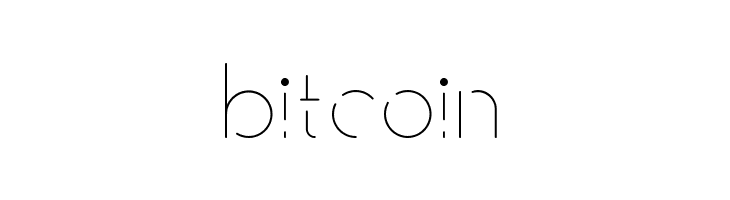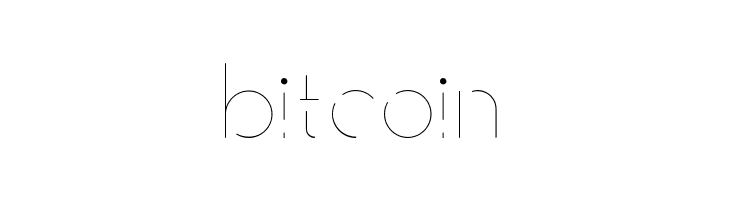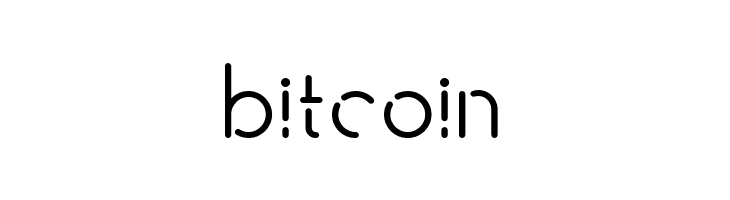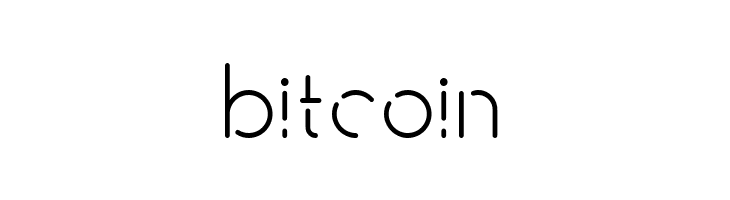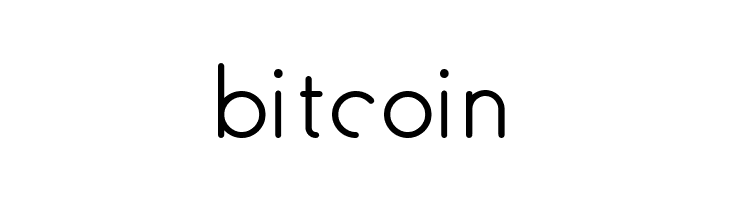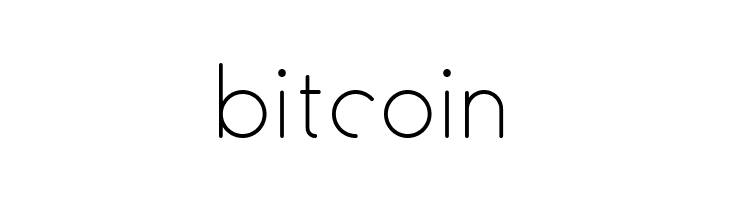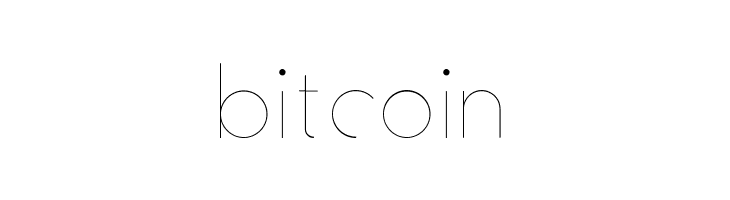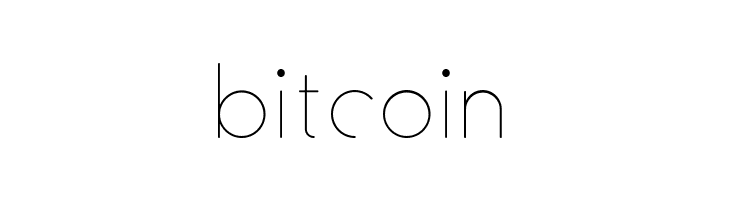
Morganite Black Font
A bold, modern font with thick, uniform strokes and a strong visual impact.
Morganite ExtraBold Font
A bold, modern typeface with tall, narrow letterforms and strong vertical emphasis.
Morganite Bold Font
A bold, condensed font with tall, striking letterforms.
Morganite Black Italic Font
A bold, italic font with a dynamic and modern style.
Morganite SemiBold Font
A bold, modern sans-serif font with a tall, condensed style.
Morganite Light Font
A sleek, modern font with tall, narrow characters and a refined style.
Morganite Bold Italic Font
Morganite Book Font
A tall, condensed sans-serif font with a modern and clean design.
Morganite Medium Font
A tall, condensed, and modern font with clean lines and a bold presence.
Emberly Medium Condensed Font
A modern, condensed serif font with medium contrast and elegant styling.
Morganite ExtraBold Italic Font
A bold, italicized font with tight spacing and strong visual impact.
Emberly Bold Font
A bold, high-contrast serif font with elegant and sophisticated details.
Emberly Extra Bold Narrow Font
A bold, narrow font with high contrast and elegant, slender letterforms.
Emberly Regular Font
A modern serif font with high contrast and elegant letterforms.
Emberly Medium Narrow Font
A sophisticated, narrow font with a modern and elegant style.
Break Fill Font
A modern, geometric font with clean lines and a minimalist style.
Morganite SemiBold Italic Font
A modern, semi-bold italic font with a sleek, condensed style.
Morganite ExtraLight Font
A modern, elegant font with tall, narrow characters and thin strokes.
Break ExtraLight Font
A minimalist, ultra-lightweight geometric font with a modern aesthetic.
Gorgeous Light Font